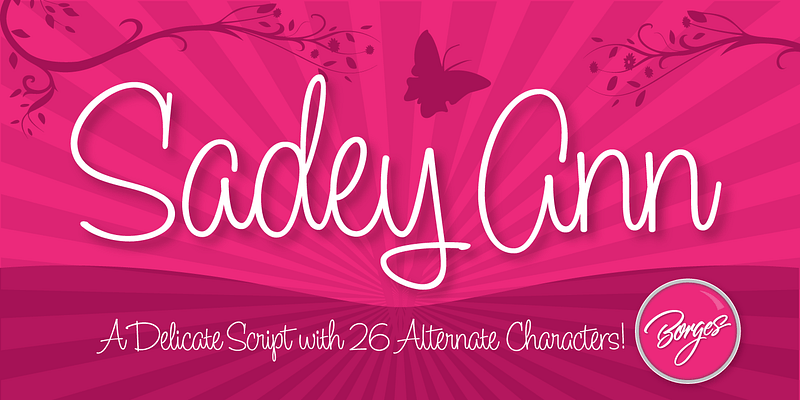
Sadey Ann Font Free Download is a charming, hand-lettered script typeface that exudes warmth, femininity, and a playful spirit. With its smooth curves, flowing strokes, and delicate swashes, Sadey Ann is perfect for wedding invitations, personal branding, social media graphics, stationery, and any design project that calls for a romantic and handcrafted feel.
The font includes a variety of stylistic alternates and ligatures, allowing for beautiful, custom-looking typography that feels personal and expressive. Sadey Ann Font works especially well in large sizes where its graceful character can truly shine.